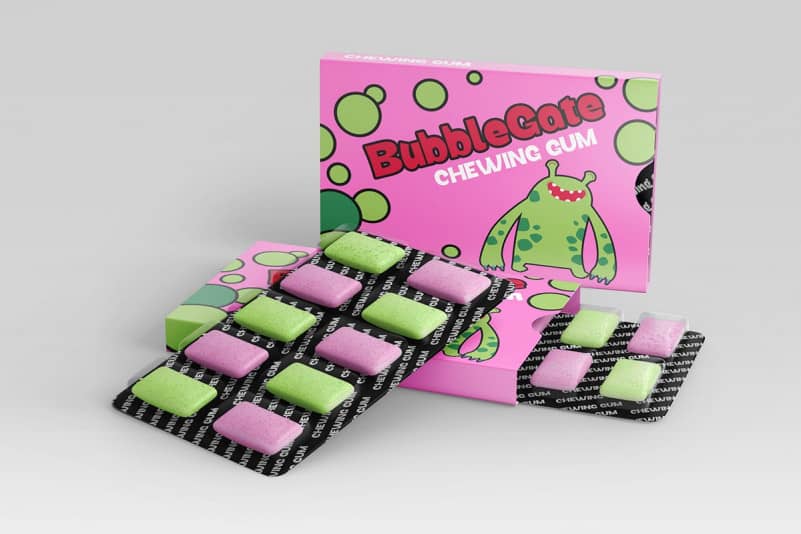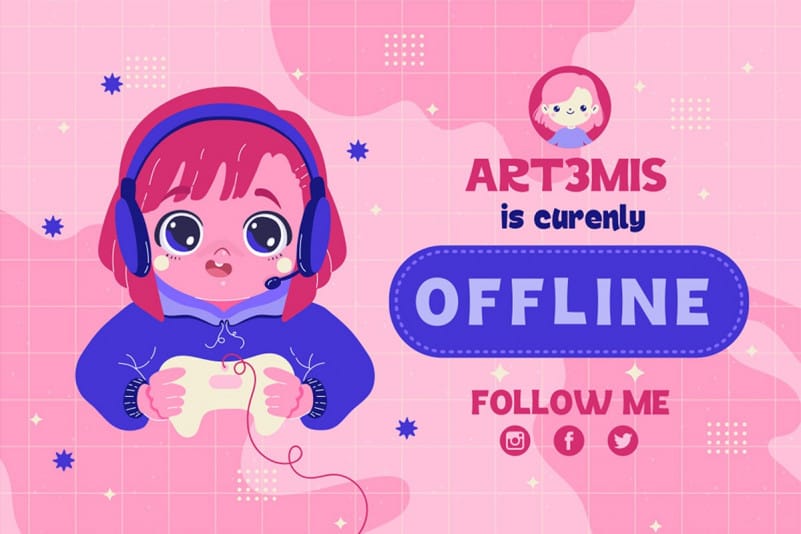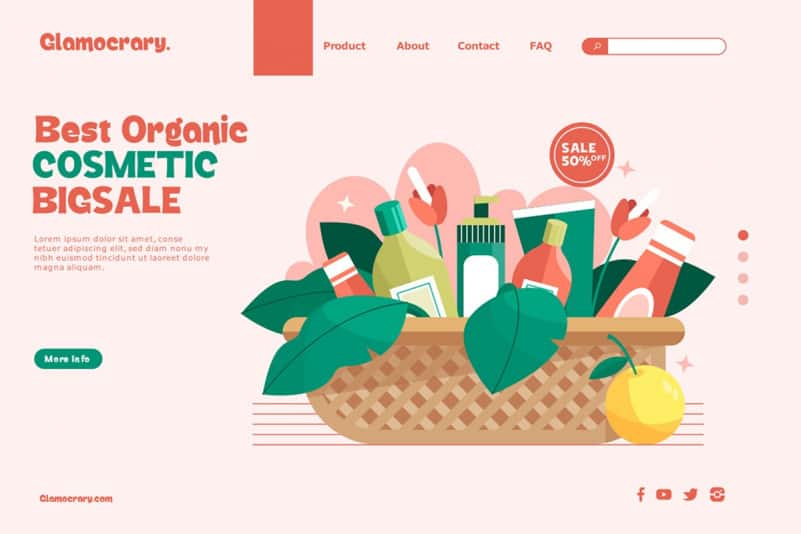
Winear Display Font is a unique display typeface inspired by the 90’s playful cartoon & comic books. Made from font designer named Vztype. This font can be used for modern and vintage designs, also can be easily paired with some graphic elements (Illustration, Photography) this font perfect for, Logotype, Branding, Title, and Packaging.